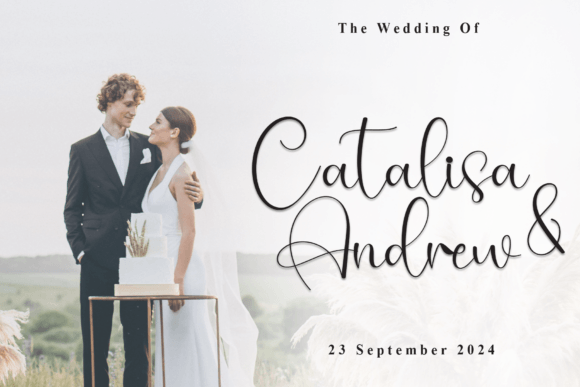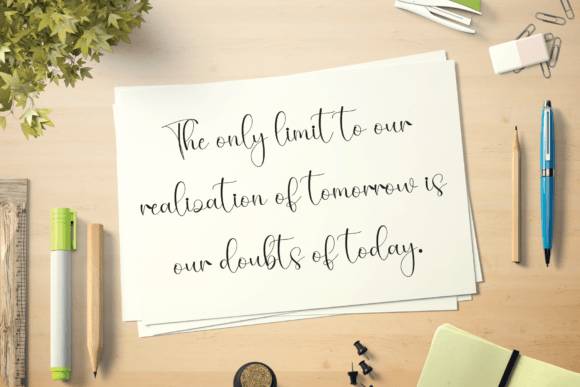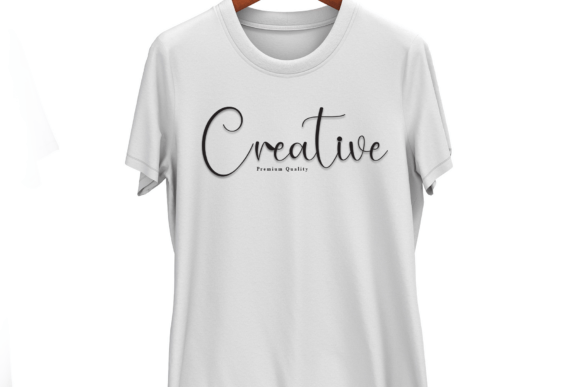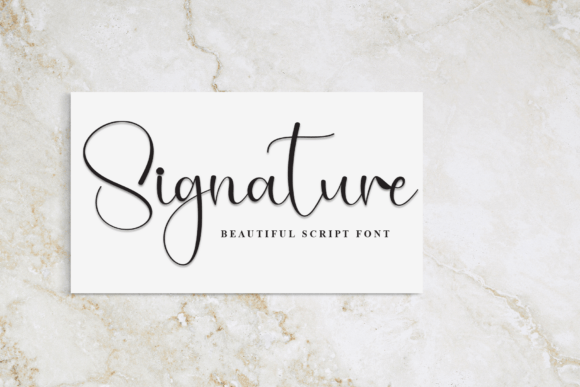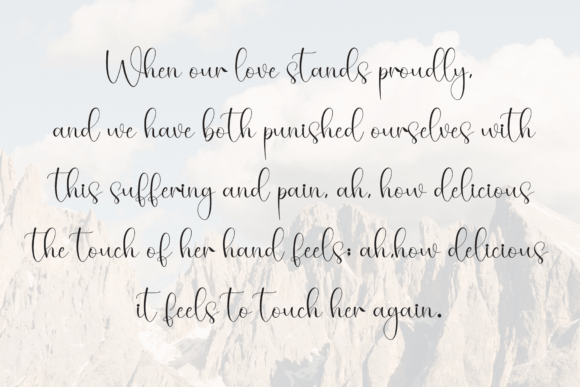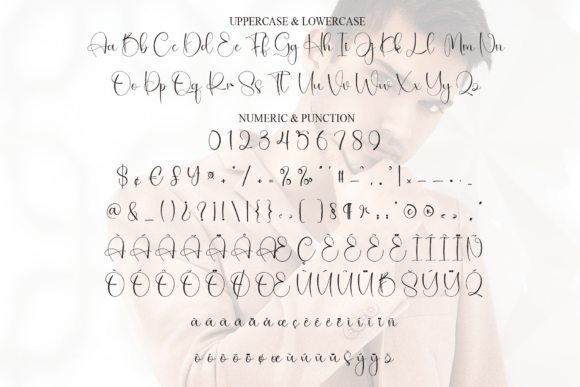
Introducing Handsome Font: Elevate Your Designs with Elegance and Charm
In the world of typography, a well-crafted font can make all the difference in transforming a design from ordinary to extraordinary. For designers and crafters seeking to infuse their projects with a touch of sophistication and warmth, the Handsome font is an exceptional choice. This stylish handwritten script font exudes elegance and charm, making it perfect for a variety of creative applications.
The Characteristics of Handsome Font
Handsome font is distinguished by its fluid strokes and natural flow, which create a captivating and sophisticated look. Each letter is carefully crafted to convey a sense of elegance, making it an excellent option for designers aiming to add a personal touch to their work. The font’s unique characteristics include:
- Fluid Strokes: The font features smooth, connected strokes that give it a natural and effortless appearance.
- Elegant Letterforms: Each letter is designed with precision and attention to detail, ensuring a refined and sophisticated look.
- Natural Flow: The font’s natural flow and rhythm make it easy to read and visually appealing.
Handsome font is versatile and can be used in a range of design applications, including:
- Invitations: Add a touch of elegance to wedding invitations, birthday cards, and other special occasion designs.
- Branding: Use Handsome font to create a unique and memorable brand identity that stands out from the crowd.
- Social Media: Elevate your social media graphics and posts with a sophisticated and eye-catching font.
Handsome font offers numerous benefits for designers and crafters, including:
- Time-Saving: The font’s pre-designed letters and characters save time and effort in the design process.
- Customization: Handsome font can be easily customized to fit your design needs, allowing for endless creative possibilities.
- Consistency: The font ensures consistency in your designs, creating a cohesive and professional look.
Tips for Using Handsome Font Effectively
To get the most out of Handsome font, consider the following tips:
- Pair with Complementary Fonts: Combine Handsome font with complementary fonts to create visual interest and hierarchy.
- Experiment with Colors: Try different color schemes and combinations to find the perfect match for your design.
- Play with Size and Scale: Experiment with varying font sizes and scales to add depth and emphasis to your design.
Handsome font is a stylish and elegant handwritten script font that can elevate your designs to new heights. Its fluid strokes, natural flow, and captivating appearance make it perfect for adding a personal touch to invitations, branding, social media, and more. With its versatility, customization options, and time-saving benefits, Handsome font is an excellent choice for designers and crafters seeking to create sophisticated and eye-catching designs.